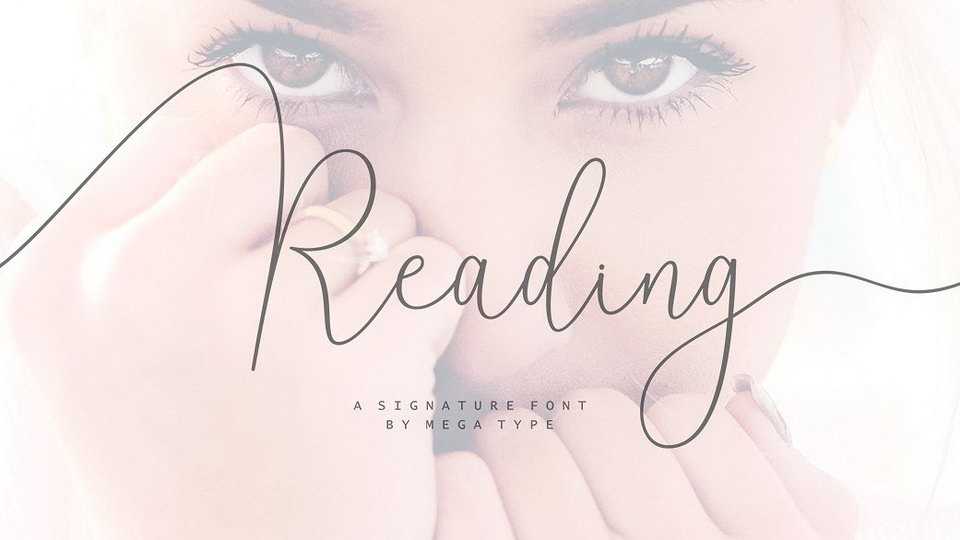
Download Reading font – a wonderful signature style script with stunning characters and airy feel. It is casual and pretty with swashes. This font can be used for various purposes such as logo, product packaging, wedding invitations and more.
Designer: Mega Type